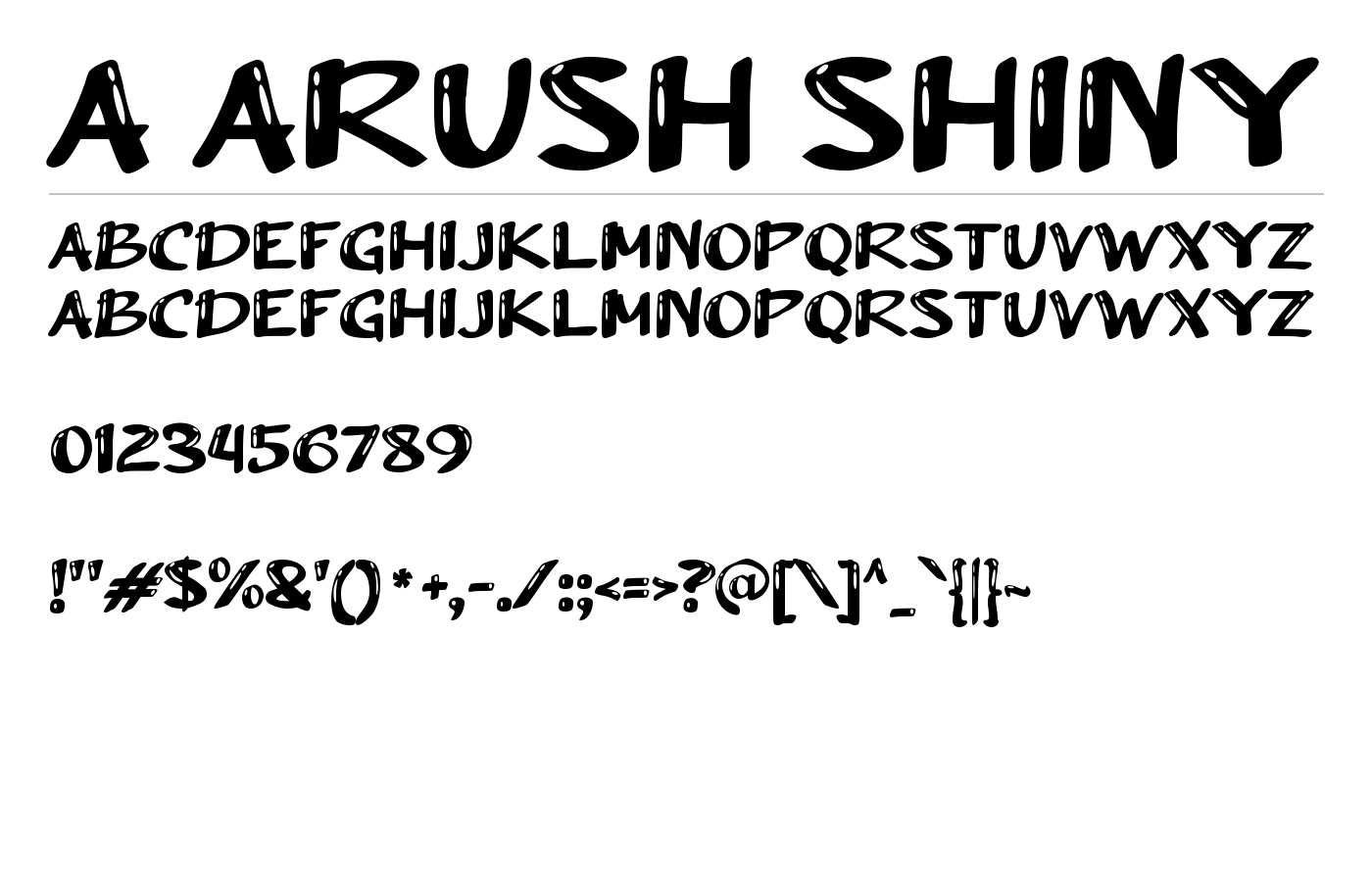
Arush Shiny is a playful and bold handwritten font with a casual, friendly vibe. Its thick, irregular strokes and lively letterforms, including quirky details like the unique ampersand and dynamic curves, make it perfect for eye-catching headlines, logos, and creative projects that want to convey fun and personality. This font works best in informal designs where a personal, energetic touch is needed.
a Arush Shiny Font
About a Arush Shiny Font